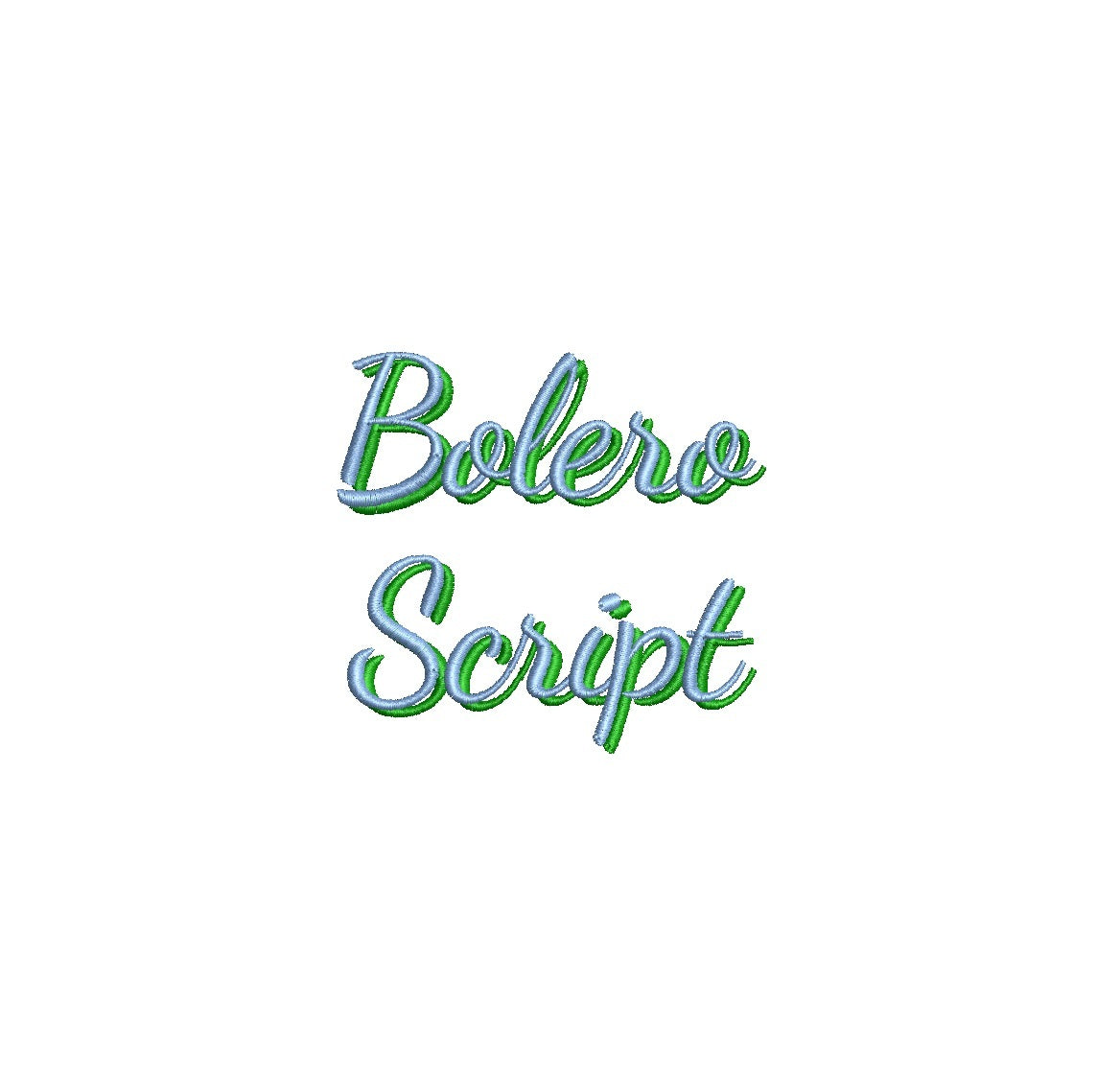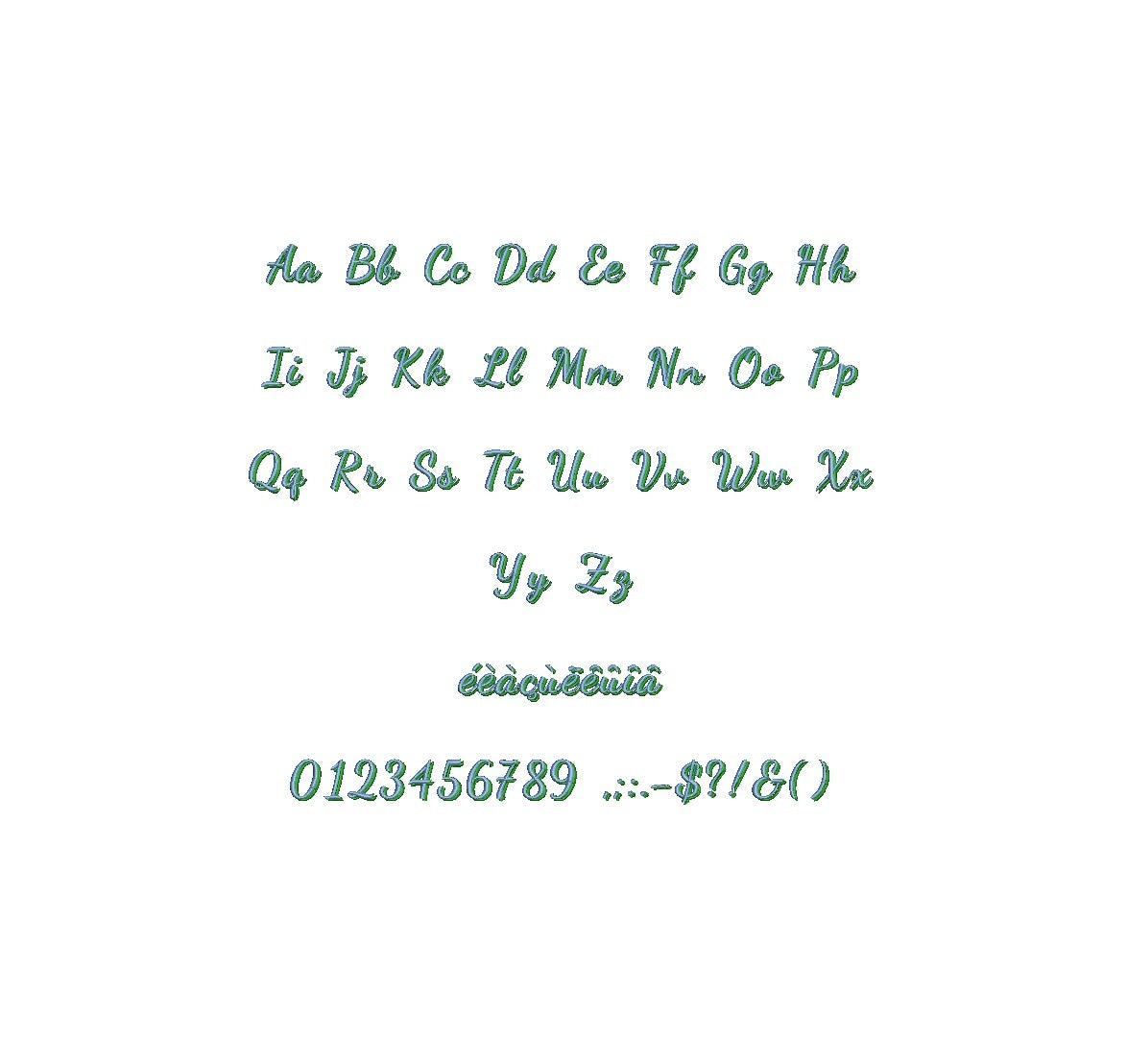
Elevate your design projects with the captivating Bolero Script Shadow ESA font, now fully compatible with Wilcom Studio e4.5.6 and Hatch 3 versions and up. Infuse a touch of timeless elegance and artistic charm into your creations. The intricate shadows and flowing lines of this font add depth and sophistication to every design. Streamline your creative process and achieve impeccable results by using this font with industry-leading software. Upgrade your projects with the compatibility of Bolero Script Shadow ESA font and create stunning visuals that leave a lasting impression. Elevate your design journey today!